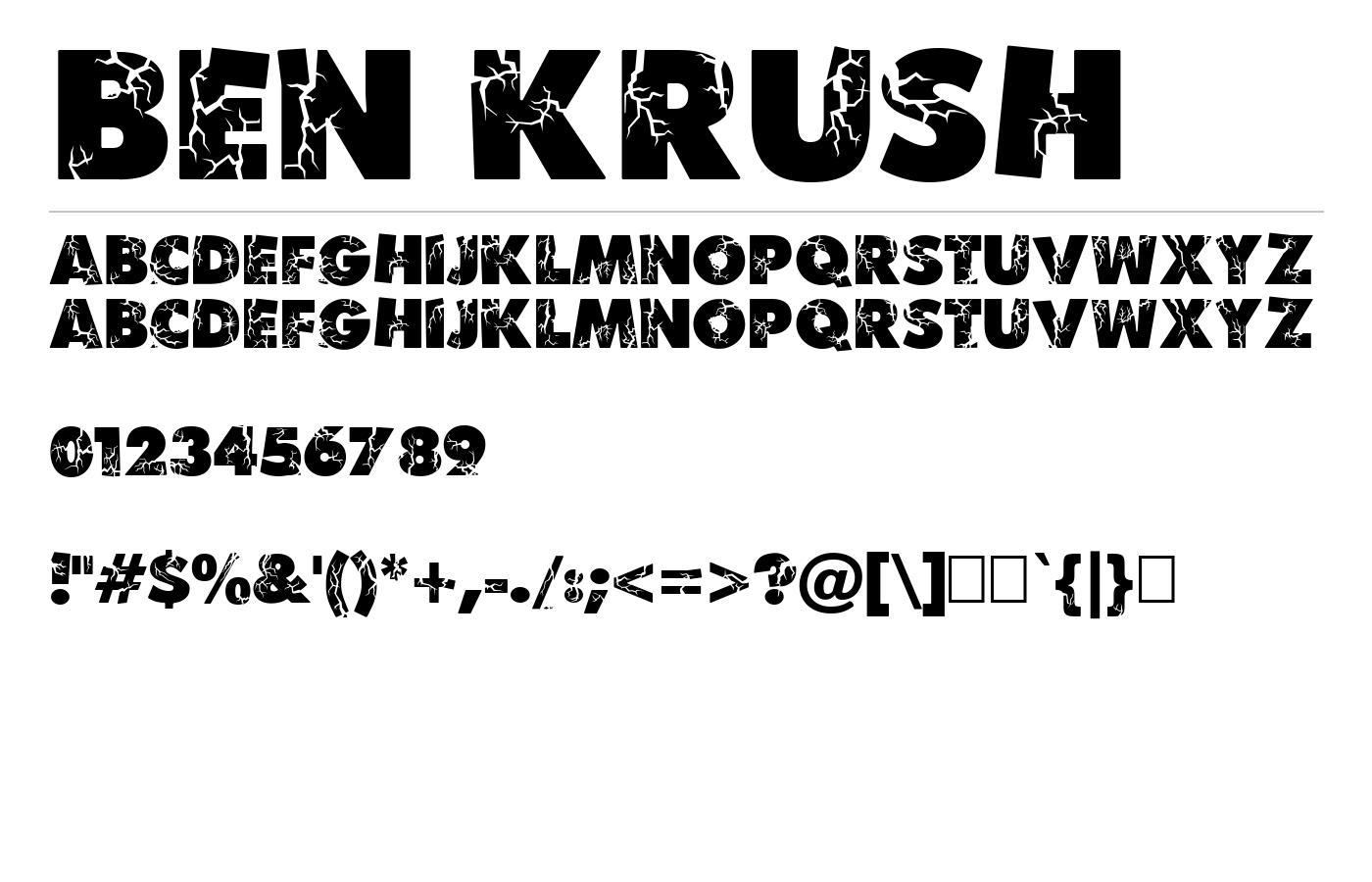
Ben Krush is a bold, heavy-weight sans serif font with a striking cracked texture effect that adds a rugged, distressed personality to its strong geometric letterforms. Perfect for impactful headlines, posters, and branding that demand attention, this font brings an edgy, industrial vibe that works well in creative and adventurous designs. Its all-caps style and high visual contrast make it ideal for conveying strength and drama in dynamic, urban contexts.
Ben Krush Font